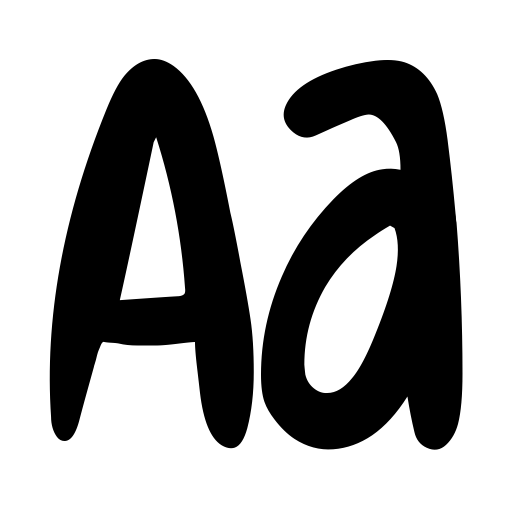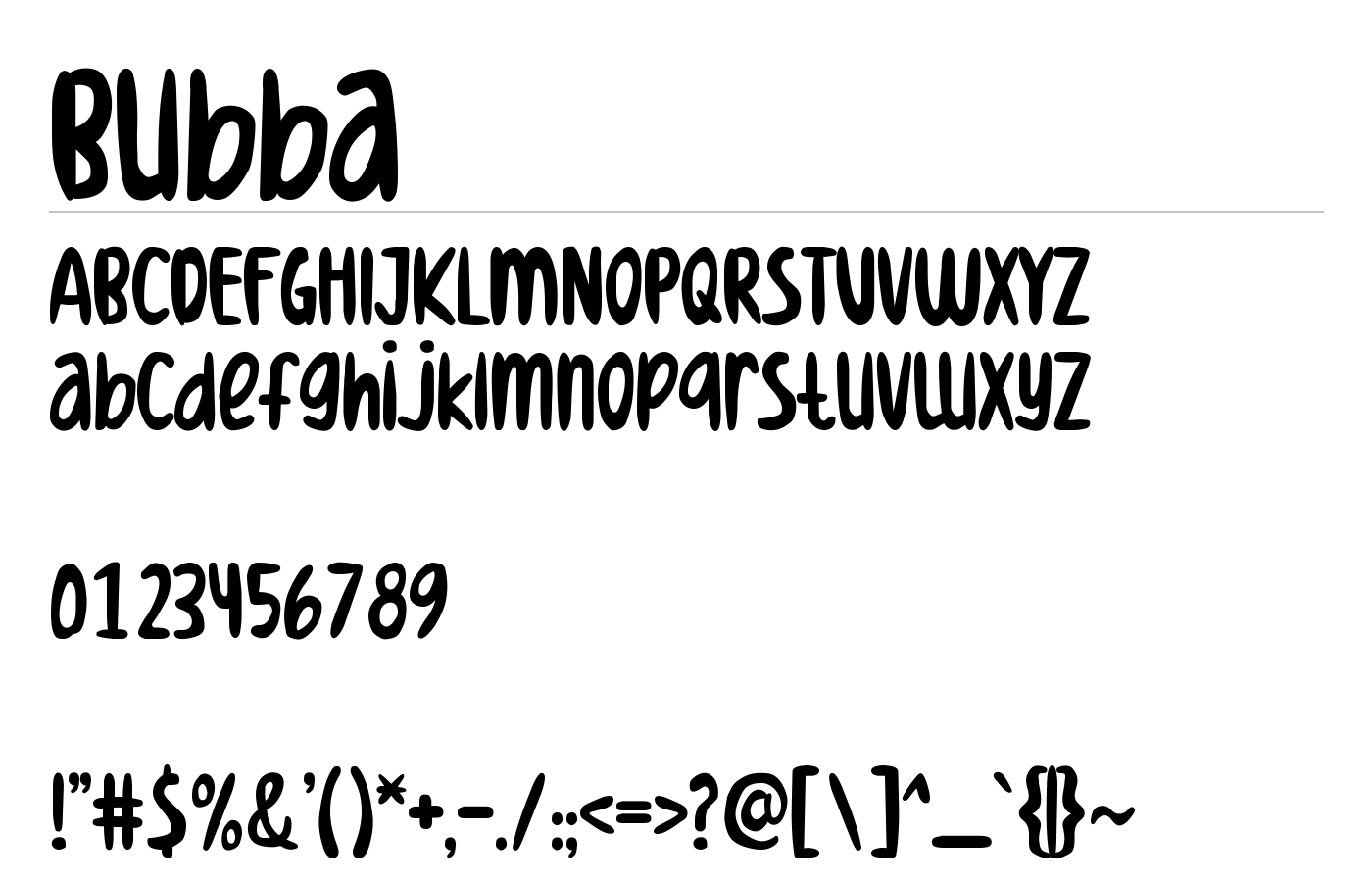
Bubba Font is a playful and bold handwritten sans serif typeface with a casual, friendly vibe. Its rounded, slightly irregular letterforms create a warm and approachable feel, making it ideal for fun, informal branding, children's materials, and creative projects where personality and charm are key. This font works well in headlines, logos, and any design needing a lively, energetic touch.
Bubba Font
About Bubba Font